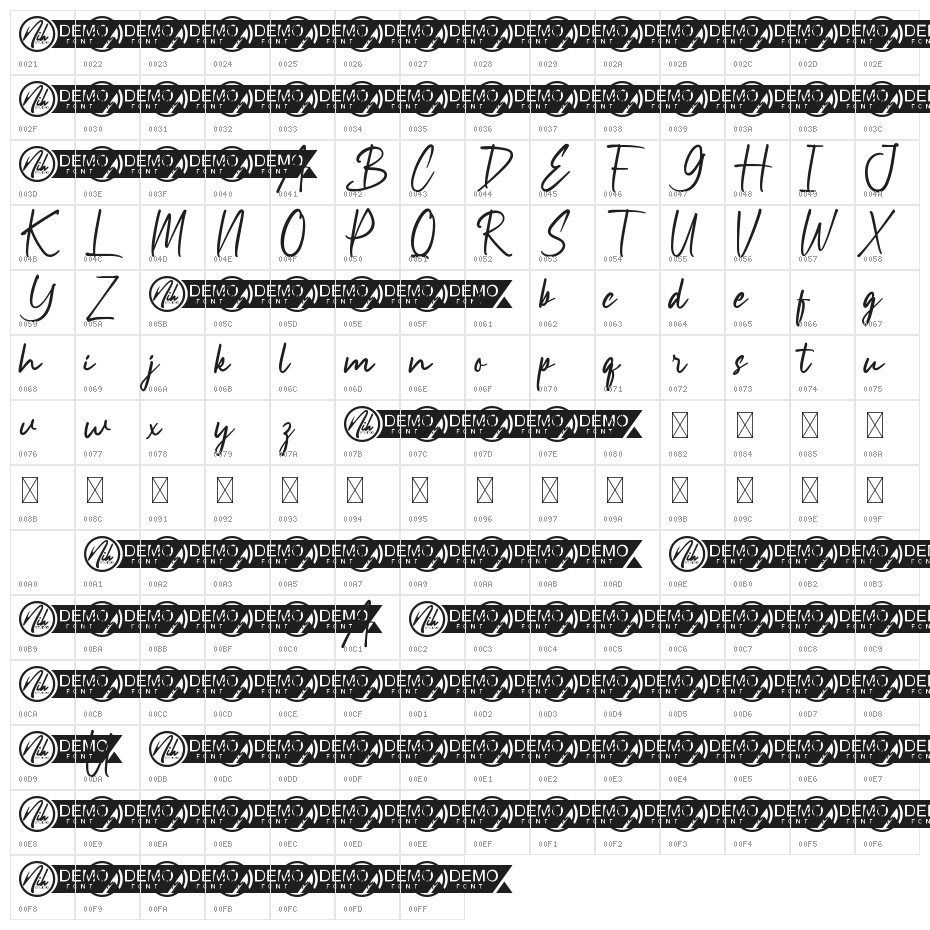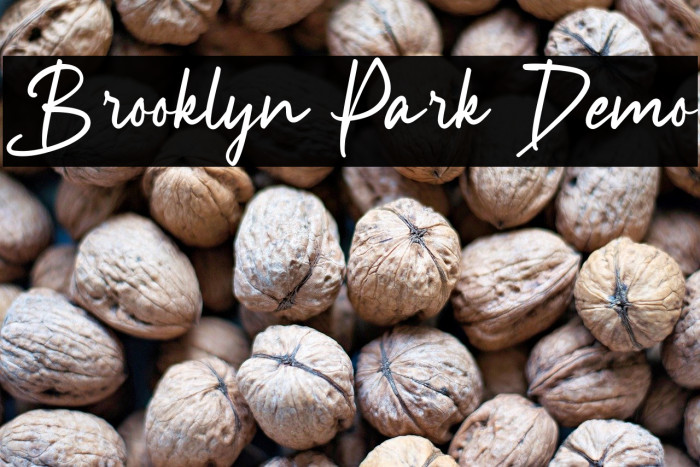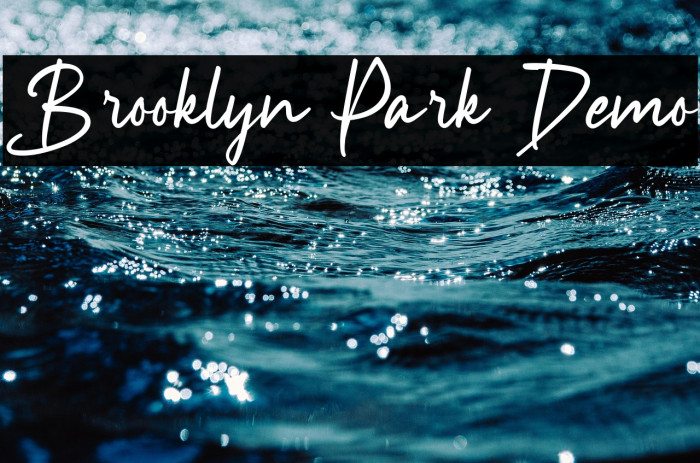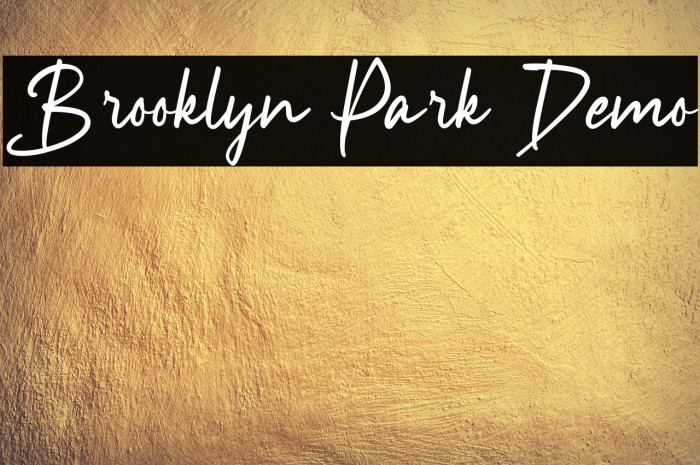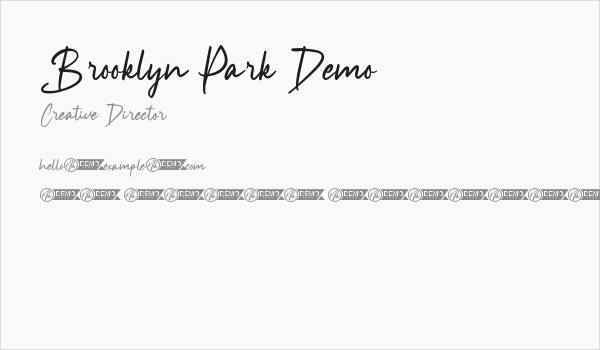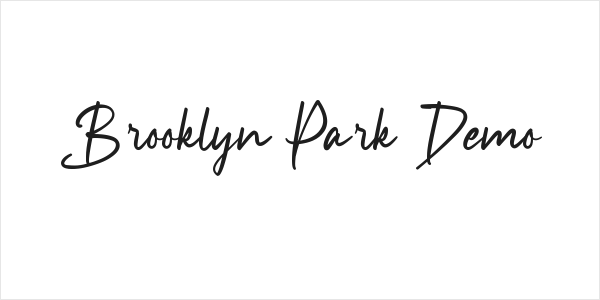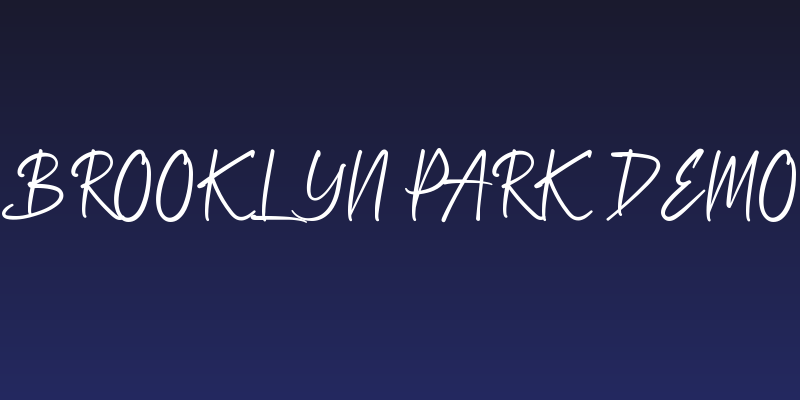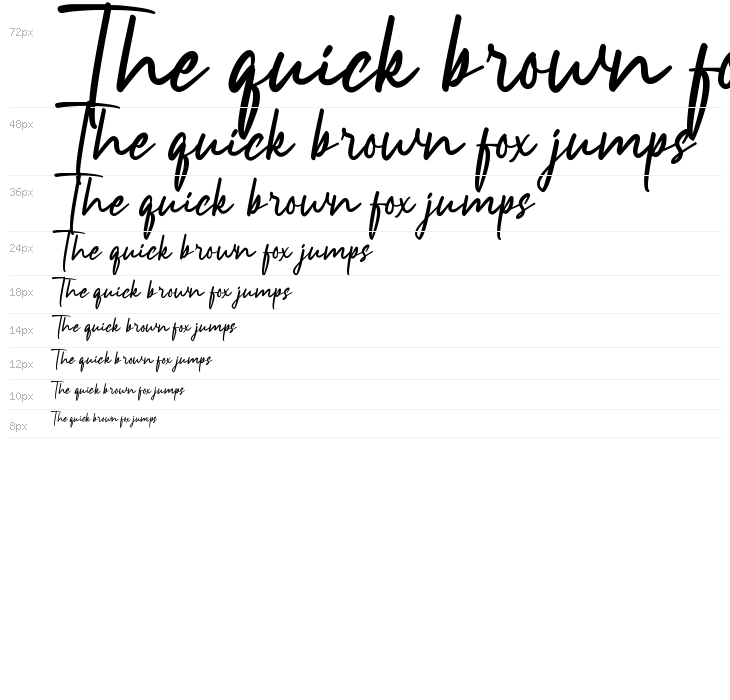
Brooklyn Park Demo Font
Brooklyn Park Demo Description
This font features a dynamic and expressive handwritten style, characterized by fluid and continuous strokes that convey a sense of motion and elegance. The uppercase letters are tall and slender, with a slight slant that adds to the casual yet sophisticated appearance. The lowercase letters are more bold and rounded, providing a nice contrast to the uppercase set. The numerals and special characters maintain the same flowing style, ensuring consistency across all glyphs. This font is ideal for projects that require a personal touch, such as invitations, greeting cards, or branding materials that aim to convey warmth and approachability.